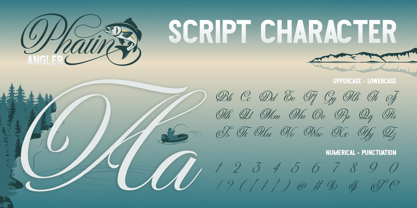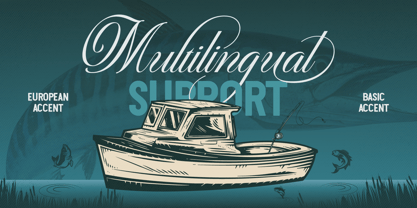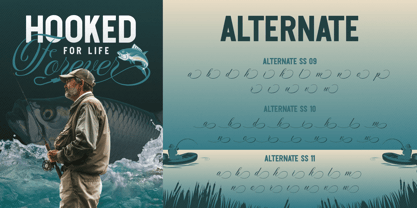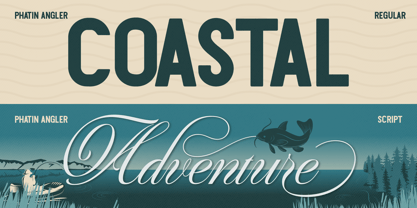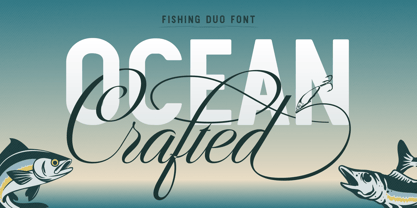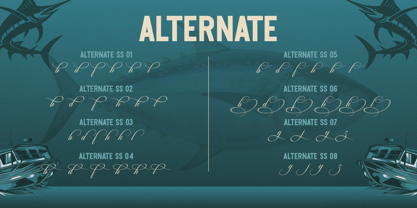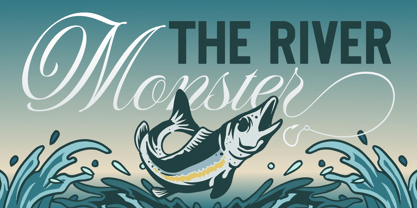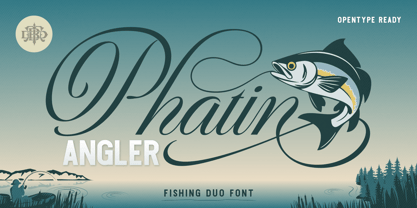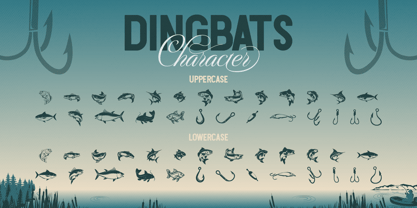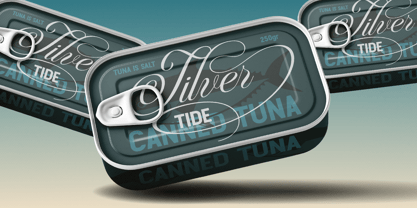
Phatin Angler
The Phatin Angler Font Family was designed by Eric Kurniawan and published by Burntilldead. Phatin Angler contains 3 styles and family package options. More about this family
Phatin Angler is a fishing themed font duo that blends two distinct styles into one perfectly balanced package: a flowing script with elegant calligraphic strokes, and a bold regular style. Both styles are carefully crafted to complement each other, creating rich, visually engaging typography.
If you're creating a fishing brand, a craft beer label, a vintage poster, or rugged outdoor apparel, Phatin Angler is the font duo that does the heavy lifting. The script font flows like a fishing line cast over still water, with bold swash capitals and smooth letterforms that pair beautifully with the regular condensed — a sturdy, no-nonsense typeface built for headlines, badges, and logos.
The design draws inspiration from classic American vintage signage from the 1940s–60s: think hand-painted bait shop signs, tackle box labels, and old fishing tournament posters. That nostalgic, lived-in quality is baked into every letterform. A full Dingbats font filled with fishing icons (fish, hooks, lures, and more) gives you ready-to-use illustrations that match the font's aesthetic perfectly.
Features: A - Z set (Uppercase & Lowercase), Number, Punctuation, Alternates, Dingbats, Multilingual